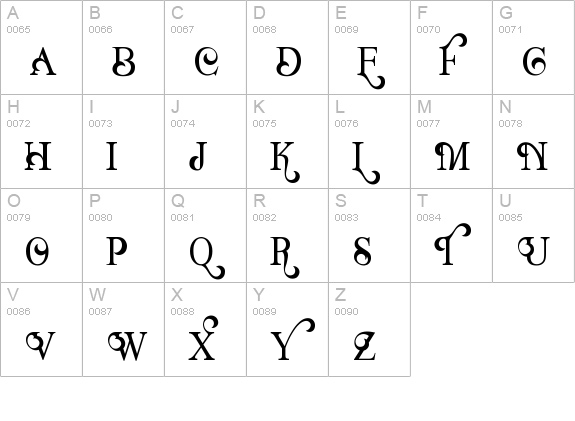
The Natures Font Details
The Natures is a free for personal use font in the General > Serif category, designed by scratchones. It has been downloaded 122 times and is available for Windows, Mac and Linux.
The Natures font is a captivating and organic typeface inspired by the beauty of nature. With its flowing lines and intricate details, this font brings a touch of the outdoors to your design projects. Whether you are creating a poster for a hiking event or designing packaging for a natural skincare product, The Natures font will add a touch of rustic charm and earthy elegance.